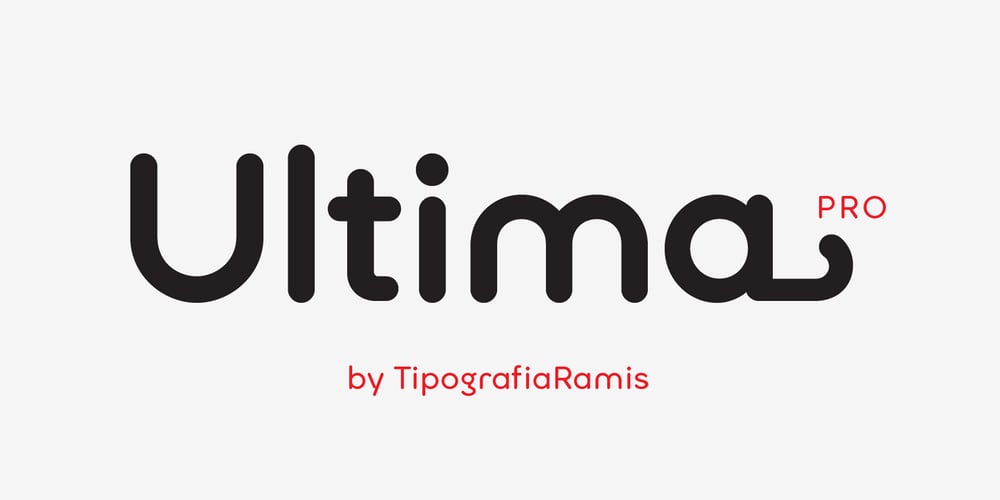
Ultima Pro
Ultima Pro font
Ultima Pro Font Family was designed by Ramiz Guseynov and published by TipografiaRamis. Ultima Pro contains 8 styles and family package options. Ultima Pro is a geometric sans serif typeface family of eight styles – light, regular, bold and black in roman and italic respectably. Ultima Pro typeface is an upgrade addition to Ultima family (2010). All glyphs have gone through shape refinements, and the amount of glyphs was significantly extended, which enabled support of more Latin languages as well as full support of Cyrillic. Fonts released in OpenType format with some opentype features. The typeface is ideal for use in display sizes though is quite legible in text.